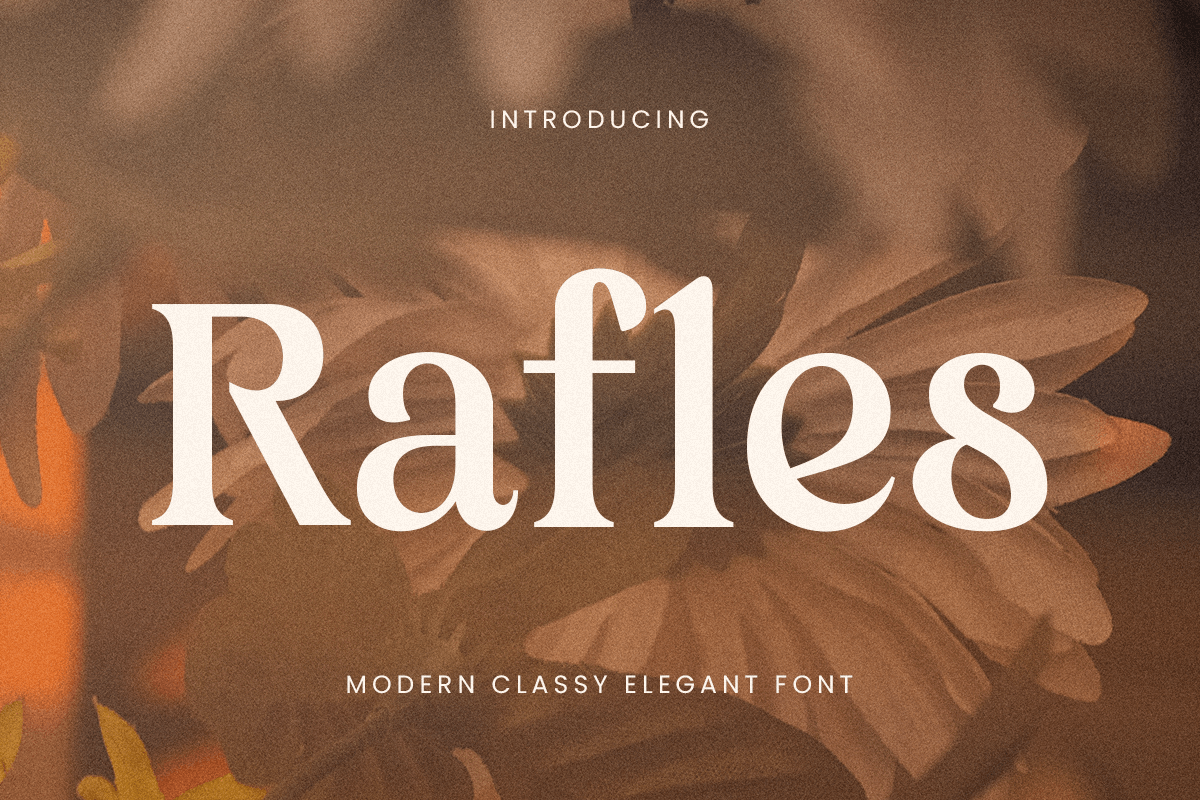
Rafles
-Modern Classy Elegant FontRafles - Modern Classy Elegant Font
RAFLES is a modern classy elegant font that blends timeless sophistication with a contemporary edge. Designed for high-end branding, luxury logos, and refined editorial design, RAFLES offers a sleek and elegant look that commands attention without overwhelming the design.
Whether you're creating a logo for a luxury brand, an upscale fashion label, or an elegant wedding invitation, RAFLES brings a touch of class to any project. Its clean lines and graceful curves ensure that your designs exude professionalism and refinement, while its versatility makes it suitable for both digital and print applications.
RAFLES – Modern Classy Elegant Font Features
Sleek and modern letterforms with an elegant touch
Perfect for luxury branding, fashion, and high-end logos
Clean, sophisticated design with minimalist appeal
OpenType features for advanced typographic styling
Bring elegance and sophistication to your designs with RAFLES – the perfect font for modern luxury branding. 🌟💎